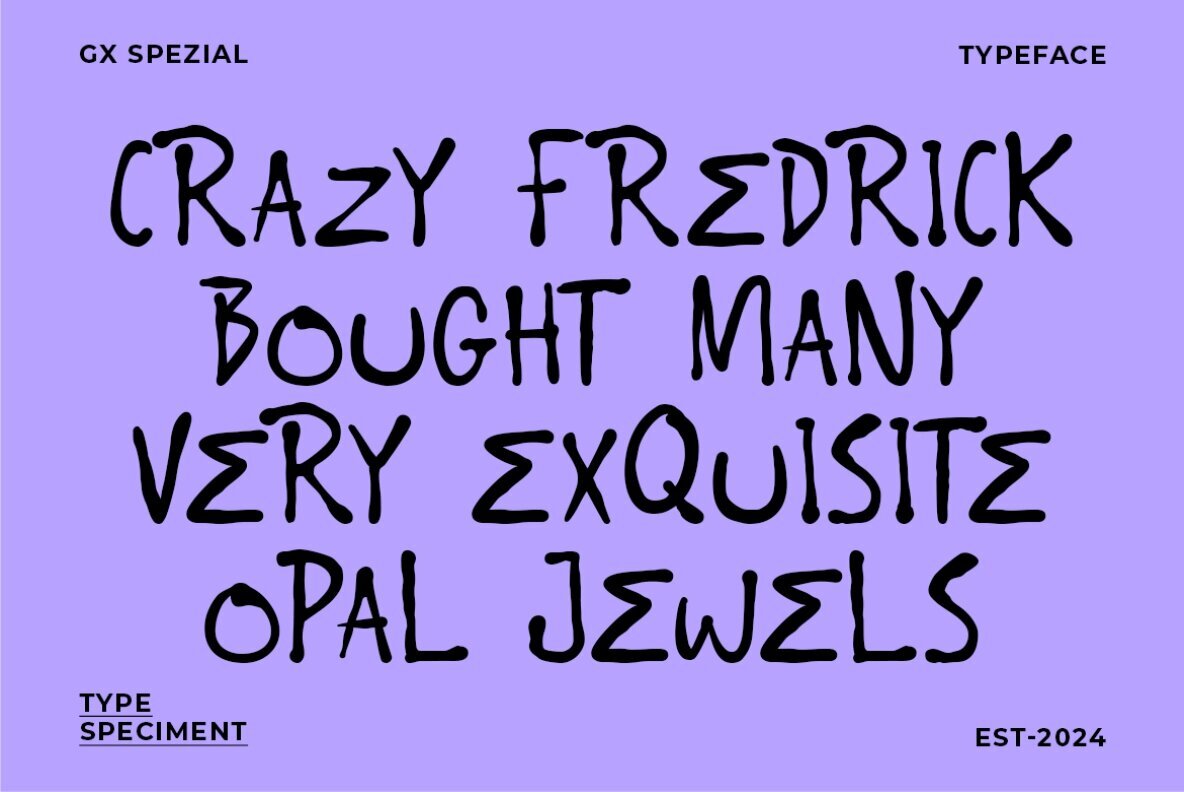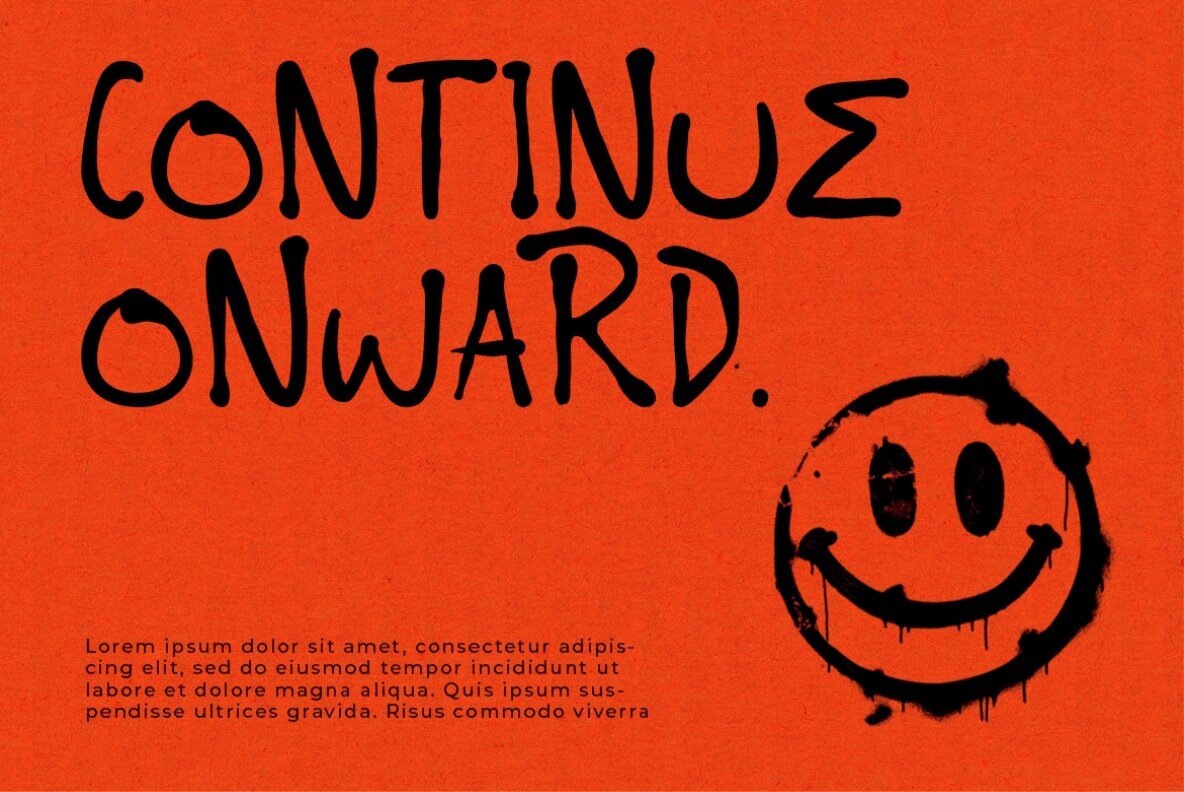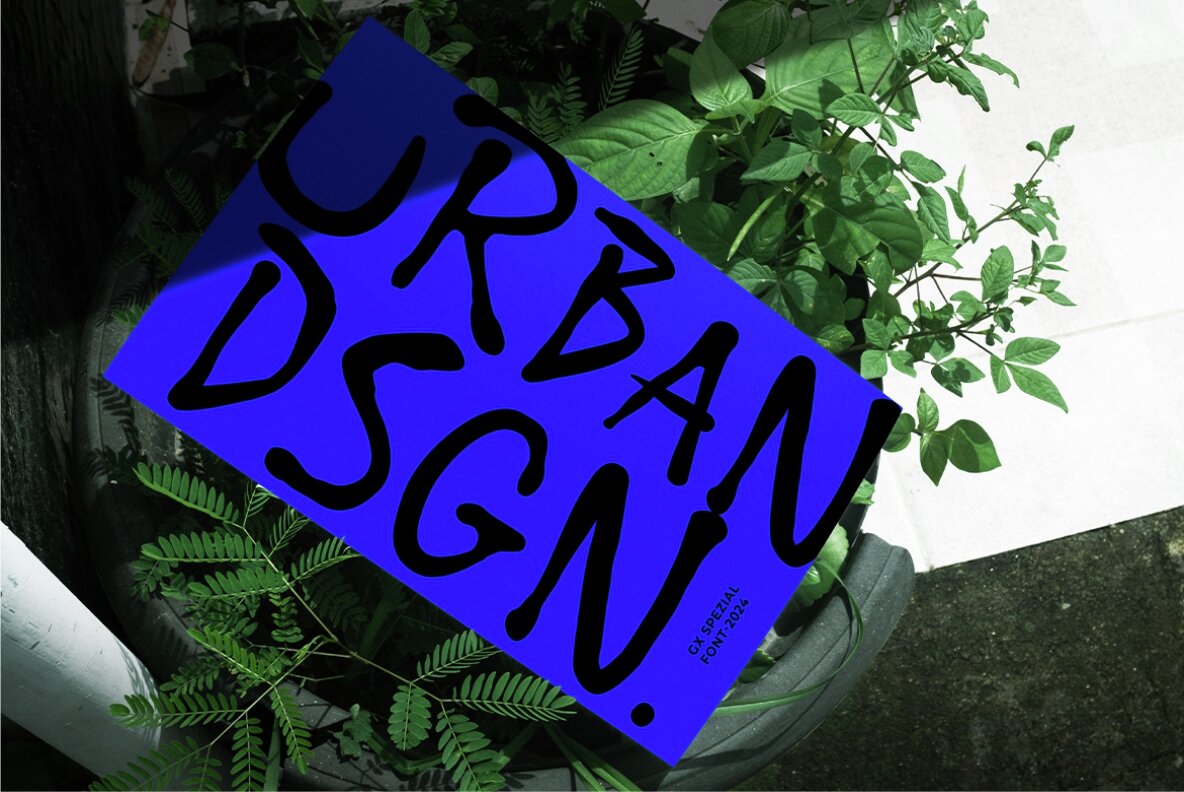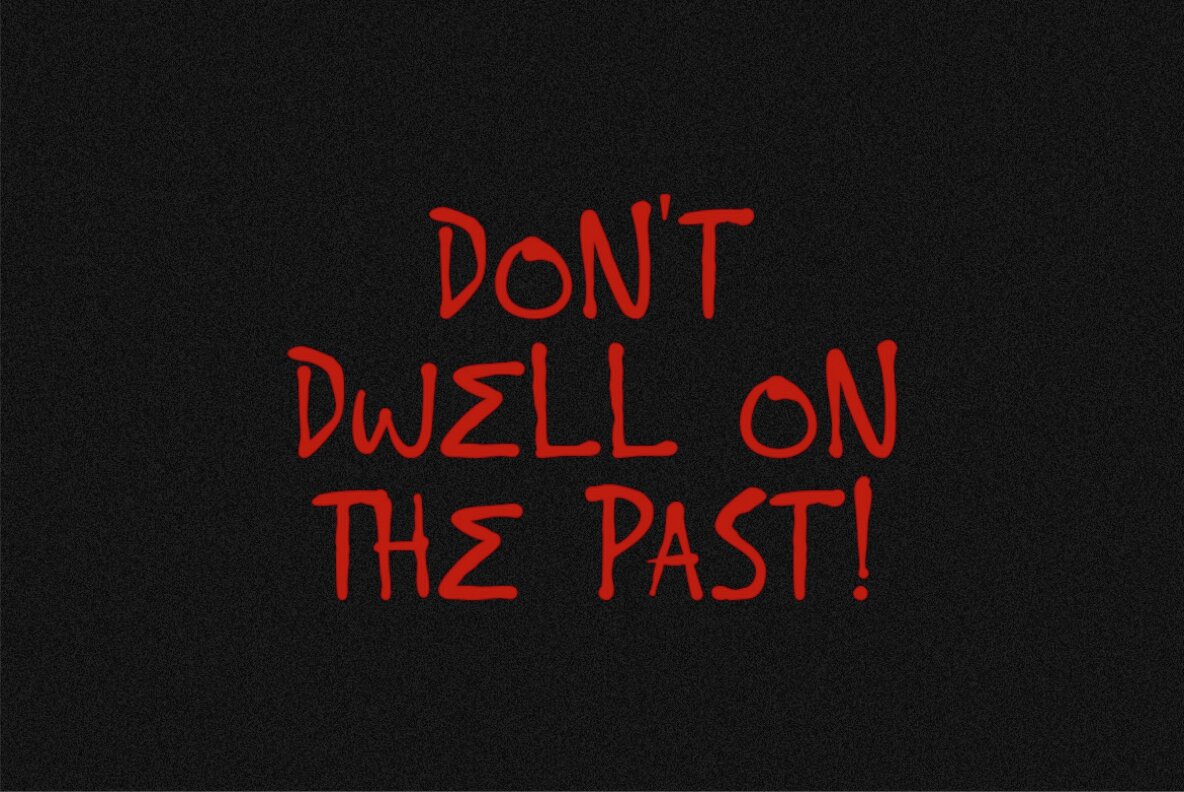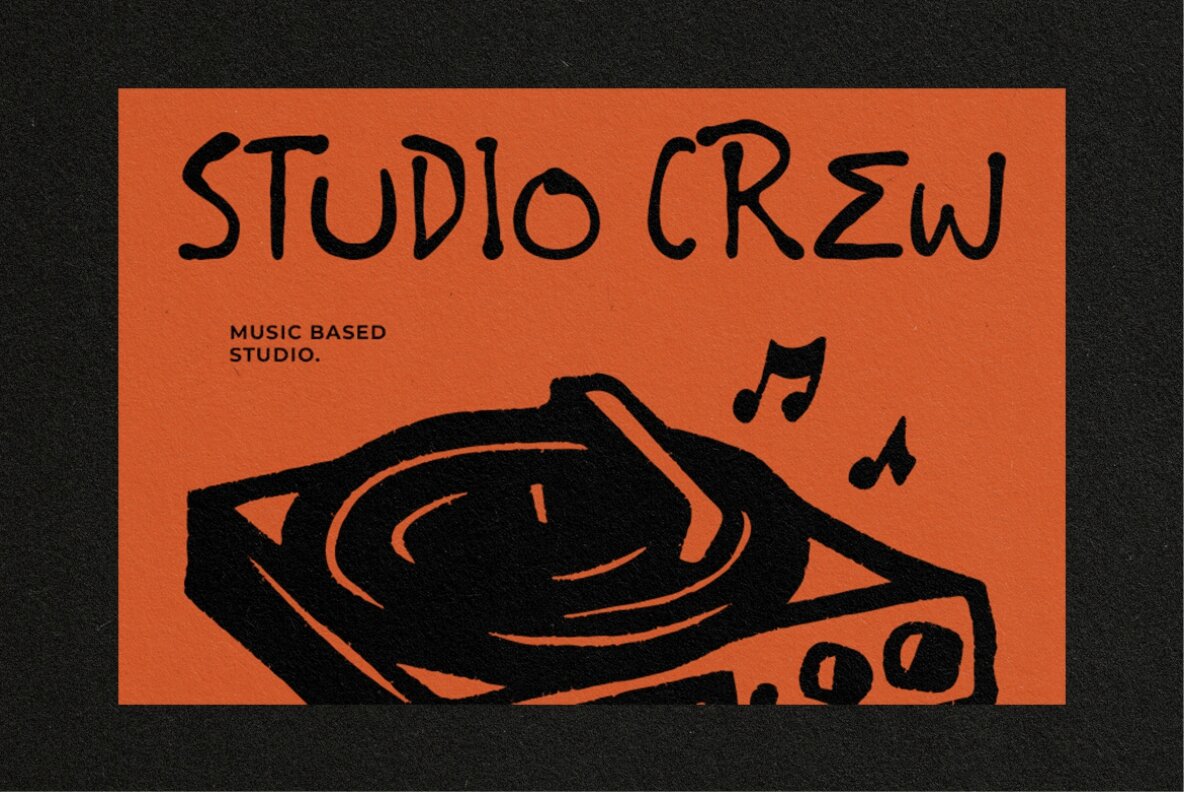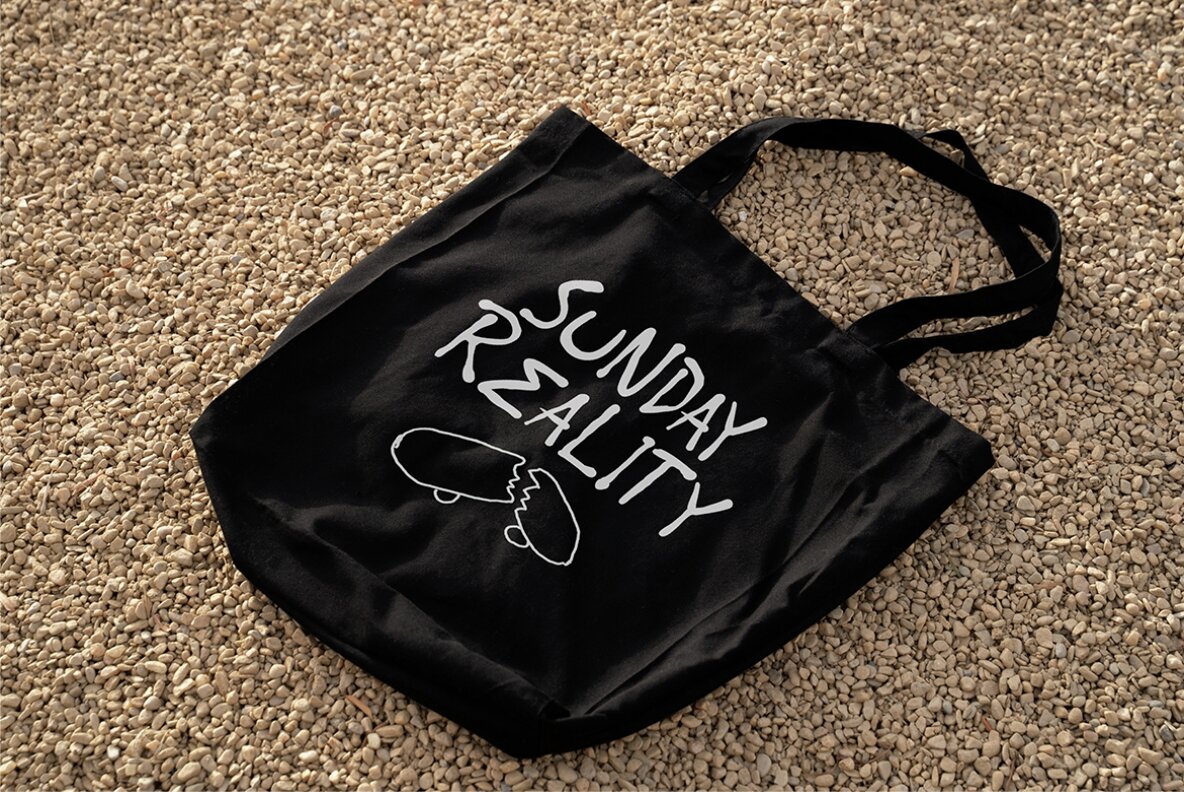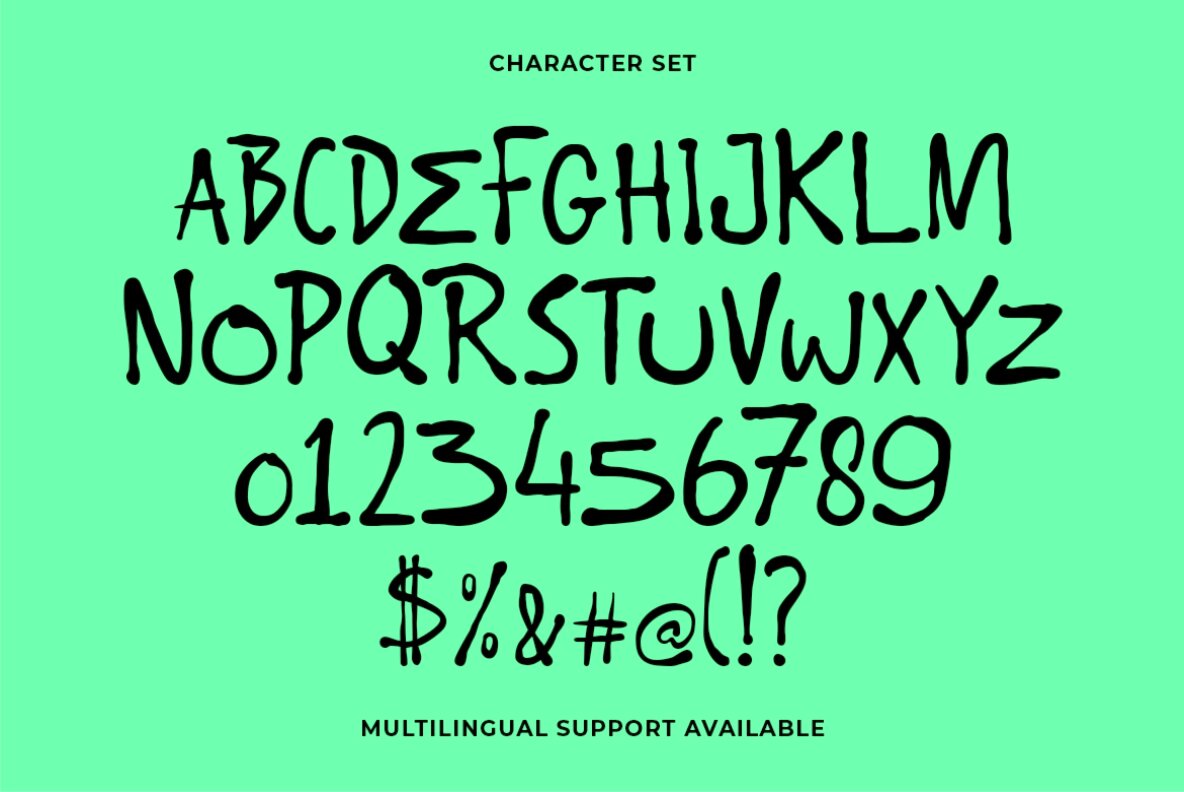
GF Spezial Font
GF Spezial
GF Spezial is a handwritten font designed to infuse your projects with a spooky, Halloween-inspired style. This font perfectly encapsulates a haunting and eerie vibe, making it an excellent choice for Halloween-themed projects. The personal touch of its handwritten elements adds a unique feel, enhancing the mysterious and intriguing atmosphere you wish to create.
Ideal for invitations, posters, and social media graphics centered around Halloween festivities, GF Spezial exudes a creepy and atmospheric quality. Its distinctive style makes it a perfect addition for any design seeking to embody the spirit of the season, adding a spooky charm that accentuates the eerie essence of Halloween.